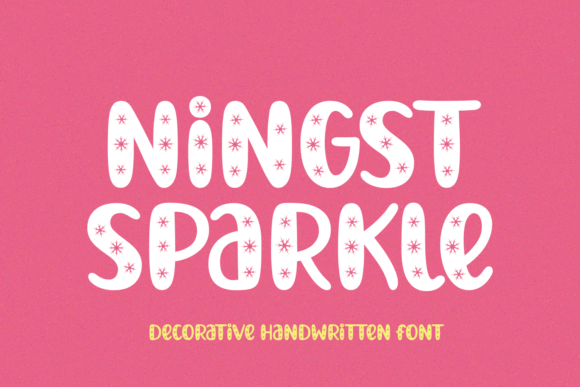
Dive into a world of whimsical charm and enchanting appeal with Ningst Sparkle, a decorative font that captures the essence of playful elegance. Its playful curves and delicate strokes evoke a sense of carefree joy, making it the perfect choice for designs that aim to spark happiness and uplift the spirits.
Visualize your creative projects adorned with Ningst Sparkle's delightful characters, each letter dancing across the page like a twinkling star. Its unique and captivating style adds a touch of magic to logos, branding, posters, book covers, and more, leaving a lasting impression that captivates the hearts of your audience.
With Ningst Sparkle, you hold the key to unlocking a world of limitless creativity. Its versatility knows no bounds, seamlessly adapting to a wide range of design aesthetics. Whether you're crafting playful invitations, whimsical social media graphics, or eye-catching marketing materials, this font has the power to transform your ideas into captivating realities.
Don't just settle for ordinary fonts; embrace the extraordinary with Ningst Sparkle. Its enchanting allure will cast a spell on your designs, inviting viewers to embark on a journey of imagination and wonder. As they feast their eyes on your creations, a smile will involuntarily spread across their faces, leaving them captivated by the sheer brilliance of your design choices.
Step into a realm where joy and creativity collide, where Ningst Sparkle's playful spirit breathes life into your projects. Let your imagination soar as you witness the transformation of ordinary designs into masterpieces that radiate happiness and leave an unforgettable mark on the hearts of those who encounter them.
With Ningst Sparkle as your creative companion, you'll never run out of ideas. Its boundless charm will ignite your passion and fuel your imagination, propelling you to new heights of creative expression. Dare to embrace the whimsical, the enchanting, and the utterly captivating with Ningst Sparkle. Your designs will thank you for it.